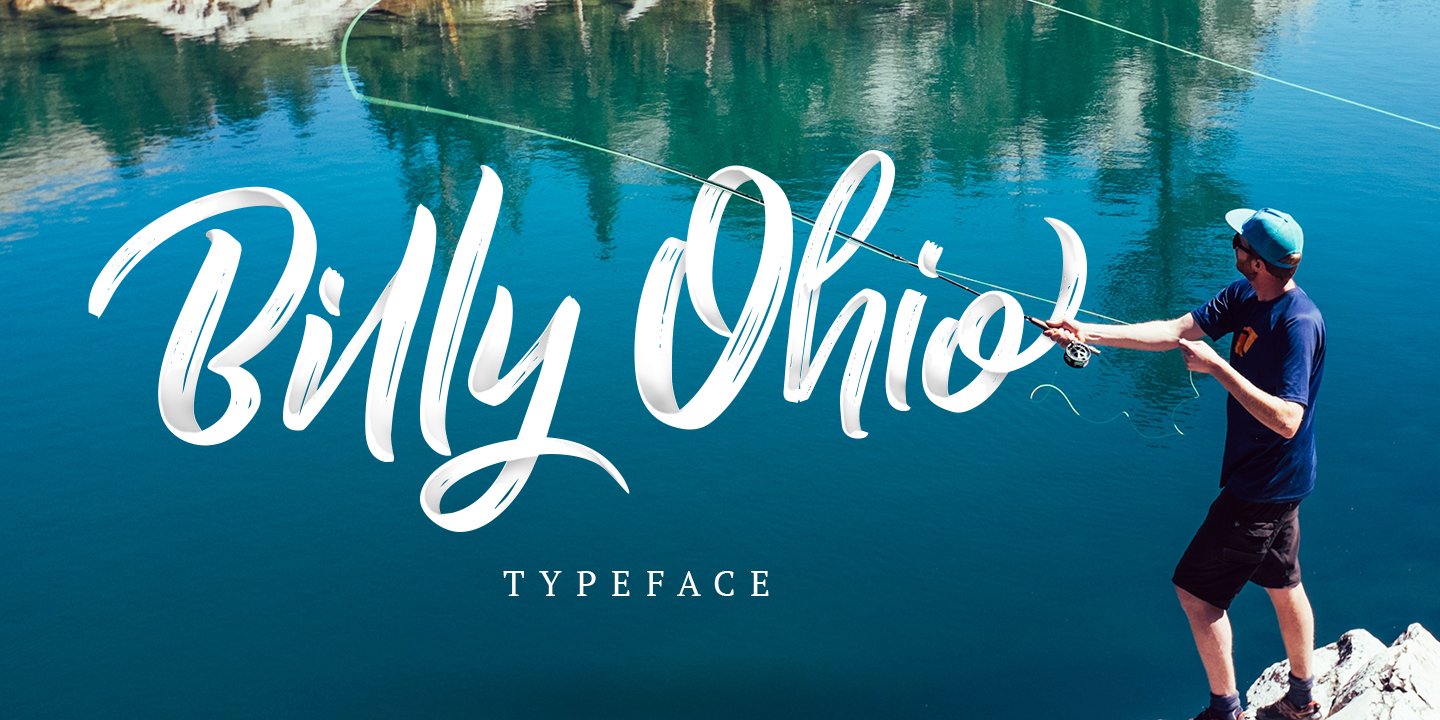
The Billy Ohio Font is perfectly designed for diverse creative applications including vintage band logos, retro music posters, classic car show advertisements, Americana-themed designs, barbershop signage, old-fashioned diner menus, nostalgic packaging designs, country music branding, western-themed graphics, and heritage brand communications. Its authentic character makes it particularly effective for entertainment venues, automotive businesses, food establishments, and lifestyle brands seeking to convey American heritage, authenticity, and timeless appeal in their visual communications and marketing materials.
What makes the Billy Ohio Font extraordinarily exciting is its authentic capture of mid-century American typography and heartland design aesthetics. This distinctive typeface embodies the spirit of classic Americana while incorporating modern design refinements that ensure optimal performance across contemporary media platforms. The font's captivating character emerges from its bold, confident letterforms, vintage-inspired proportions, and carefully crafted details that evoke a sense of nostalgia and American pride, making it perfect for brands seeking to establish a connection with traditional values and authentic American culture.
The Billy Ohio Font family encompasses multiple weights and styles designed to accommodate various vintage branding requirements. The collection typically includes light, regular, medium, bold, and black weights, with many versions offering condensed and extended variants to provide maximum design flexibility. Some editions may include distressed versions, shadow effects, and stylistic alternates that enhance the font's vintage appeal and enable designers to create unique typographic treatments for heritage-focused brand applications and retro marketing campaigns.
Design professionals and creative agencies consistently choose the Billy Ohio Font Free Download for its exceptional authenticity and versatile performance. The font features optimized spacing and kerning that ensures clear readability across various applications, from small merchandise labels to large outdoor signage. Its robust construction maintains its distinctive vintage character in both digital and print environments, while the comprehensive character set includes uppercase and lowercase letters, numerals, punctuation marks, and special symbols, along with extensive language support for international heritage brands and Americana-themed projects.
The Billy Ohio Font represents the perfect preservation of American typographic heritage combined with modern design standards. Its nostalgic aesthetic appeals to audiences seeking authenticity while maintaining the professionalism required for contemporary business applications. The font's remarkable adaptability allows it to work effectively in both traditional vintage contexts and modern heritage branding, ensuring consistent appeal across restaurant signage, music industry graphics, automotive marketing, and classic American lifestyle campaigns.
Celebrate American heritage and authentic design with the timeless character and professional quality of the Billy Ohio Font, the ultimate choice for vintage Americana typography excellence.